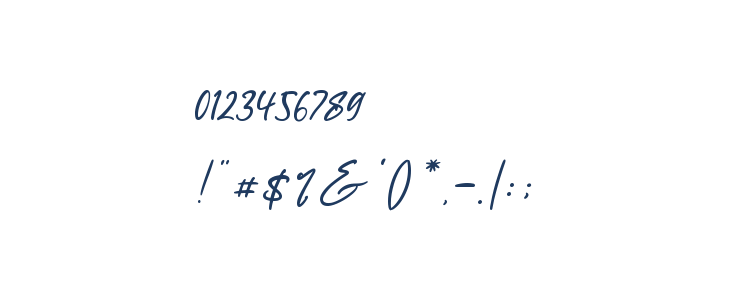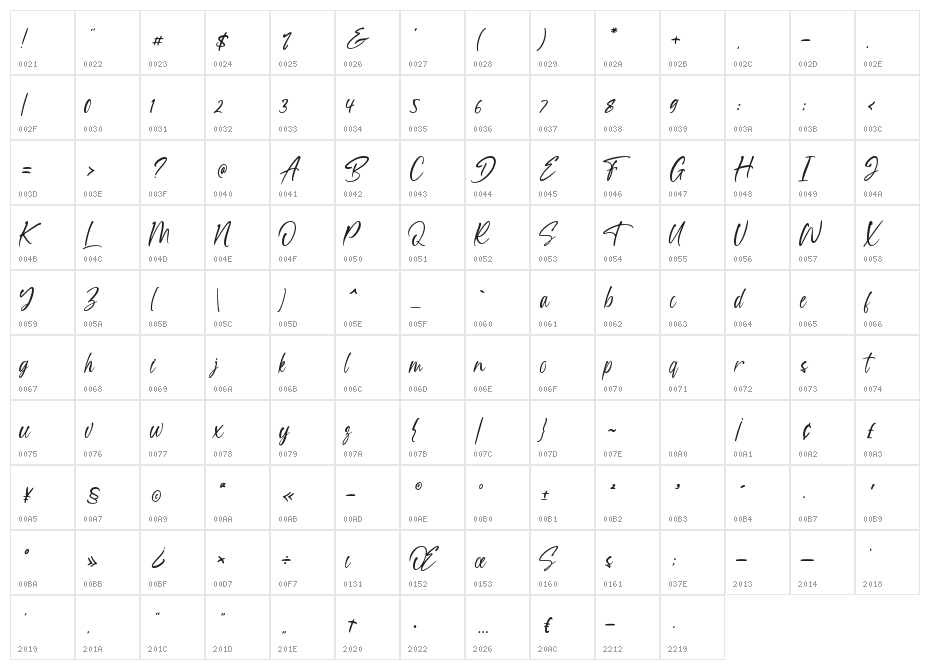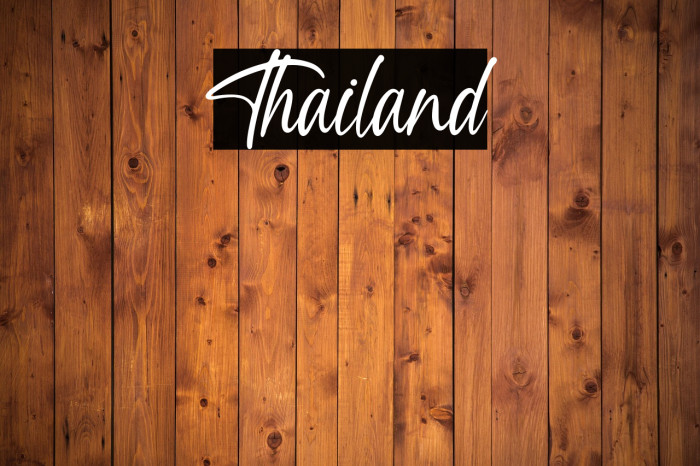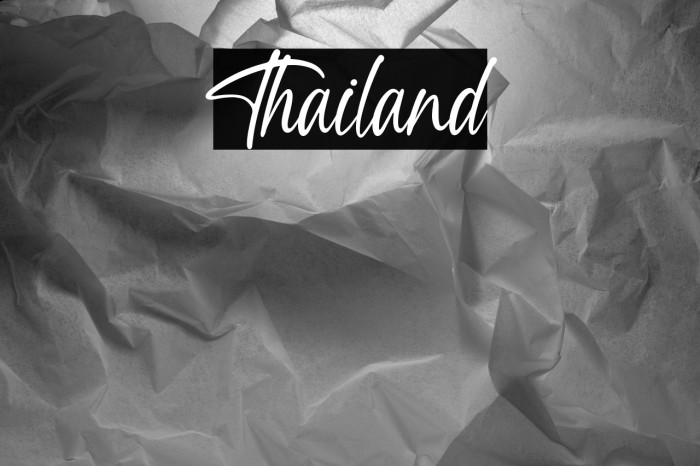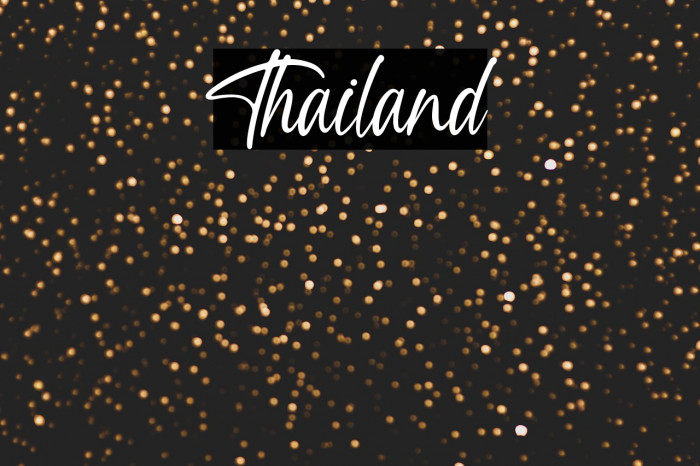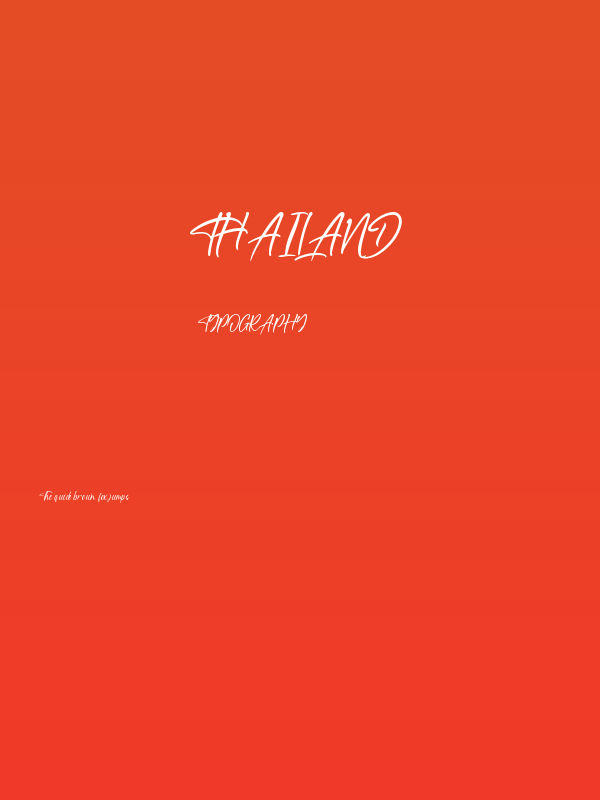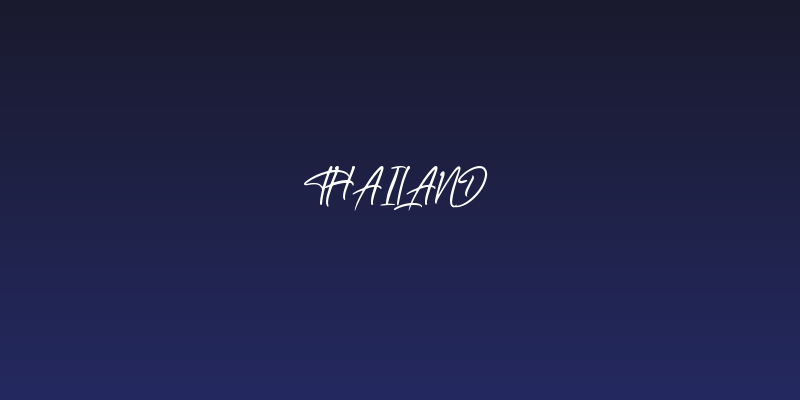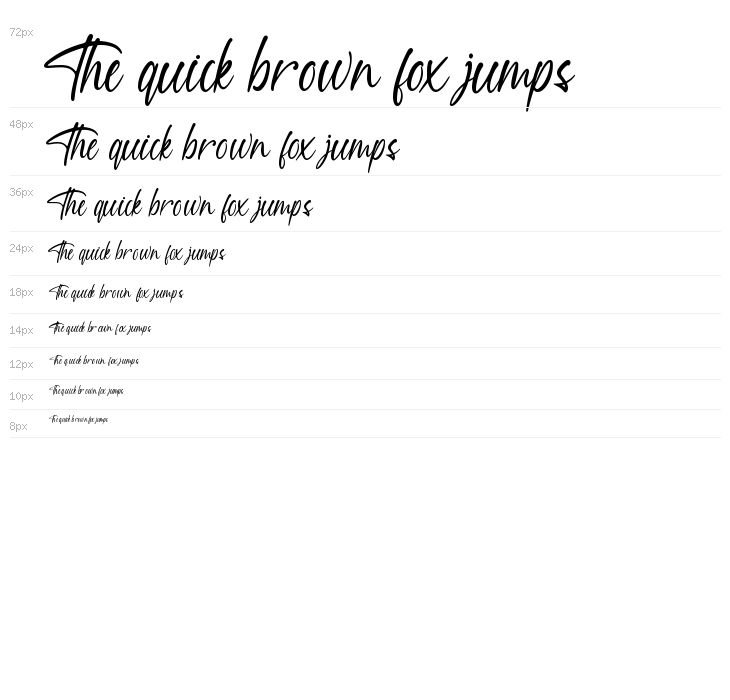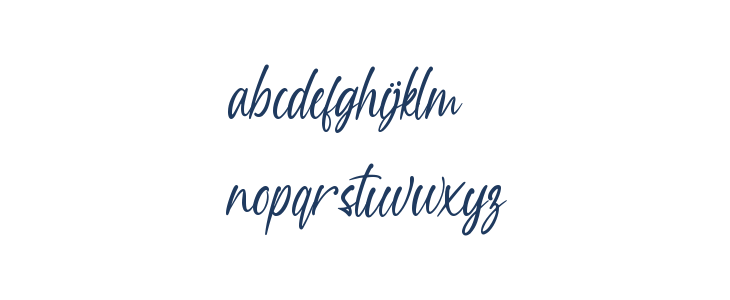
Thailand Font
Thailand Description
This font exudes a dynamic and elegant script style, characterized by its fluid and connected letterforms. The strokes are smooth and flowing, giving a sense of motion and grace. The uppercase letters are bold and prominent, while the lowercase letters maintain a consistent rhythm, enhancing readability. The numerals and special characters are crafted with the same attention to detail, ensuring a cohesive look across all elements. This font is ideal for projects that require a touch of sophistication and flair.
| Proposed Projects | Ideal for wedding invitations, branding, logo design, and elegant packaging. |